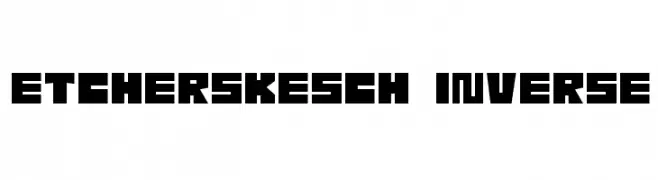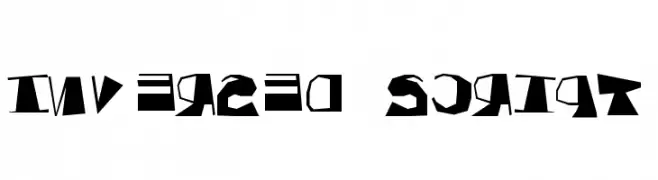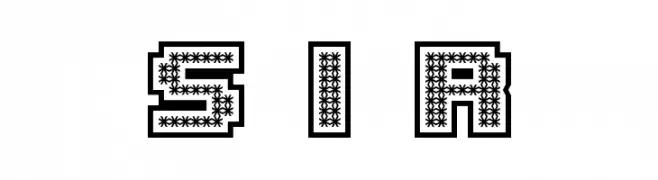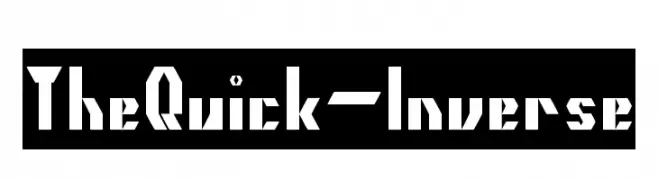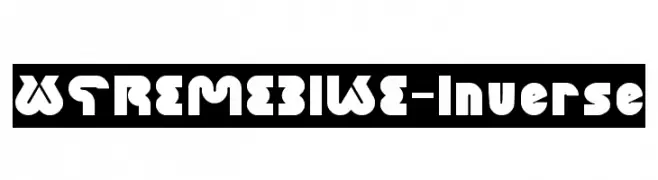
( weknow - Wino S Kadir - www.creativefabrica.com/designer/weknow/ )
A wavy, hollow outline font with a dynamic and playful style.
( weknow - Wino S Kadir - www.creativefabrica.com/designer/weknow/ )
A bold, wavy font with a playful and dynamic design.
( weknow - Wino S Kadir - www.creativefabrica.com/designer/weknow/ )
A bold, geometric font with sharp angles and a modern aesthetic.
( weknow - Wino S Kadir - www.creativefabrica.com/designer/weknow/ )
A bold, geometric font with sharp angles and high contrast, ideal for modern designs.
( weknow - Wino S Kadir - www.creativefabrica.com/designer/weknow/ )
A bold, geometric font with high contrast and a modern, dynamic style.
( Dingbat Dungeon )
A decorative, maze-like font with bold, geometric patterns.
( Font Emporium - web.archive.org/web/20020126112915/www.fontemporium.com/ )
A bold, angular, and geometric font with a dynamic and energetic style.
( Font Monkey - www.fontmonkey.com )
A bold, geometric font with a strong, block-like design.
( GeelynEdits - plus.google.com/u/0/108461348931992643310/ )
A pixelated, dot-based font with a retro digital aesthetic.
( Pixel Kitchen )
A bold, decorative font with a pixel art-inspired pattern and thick outlines.